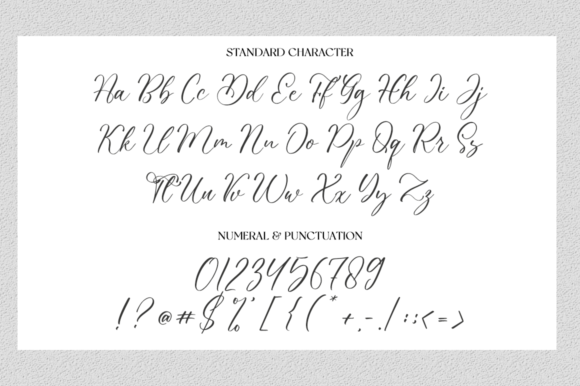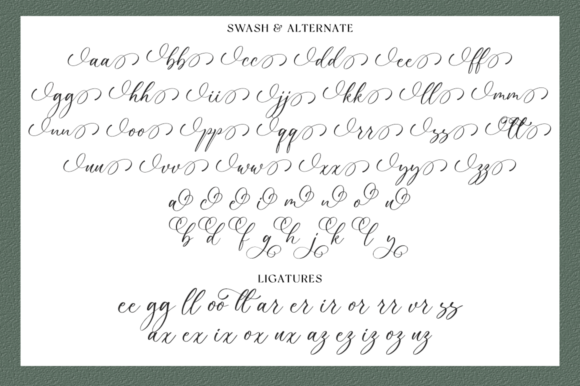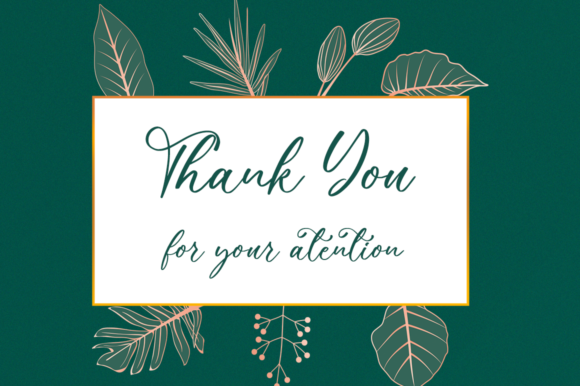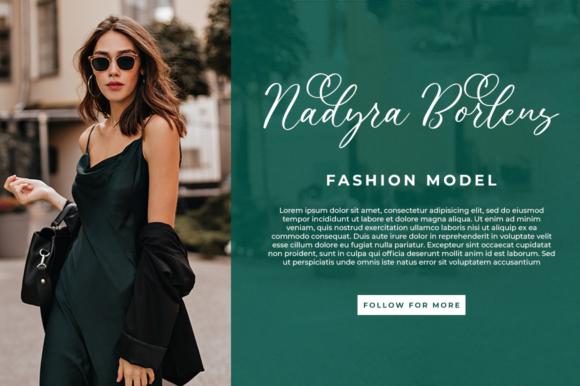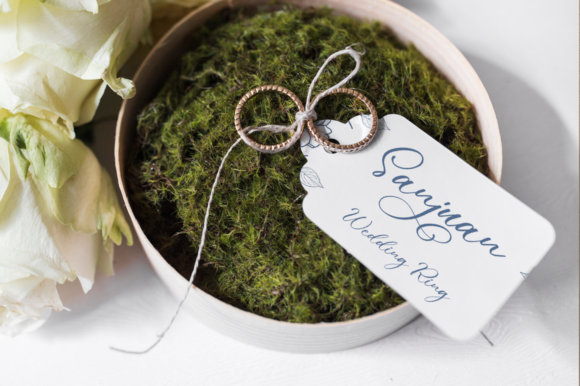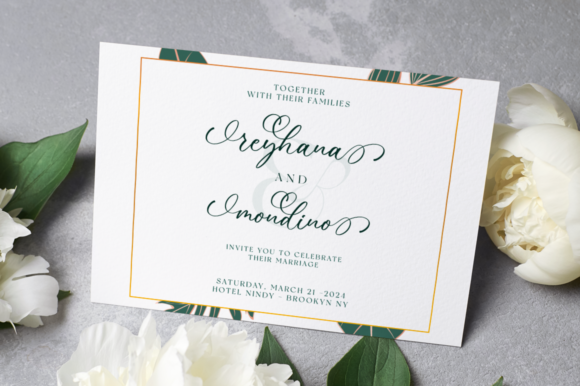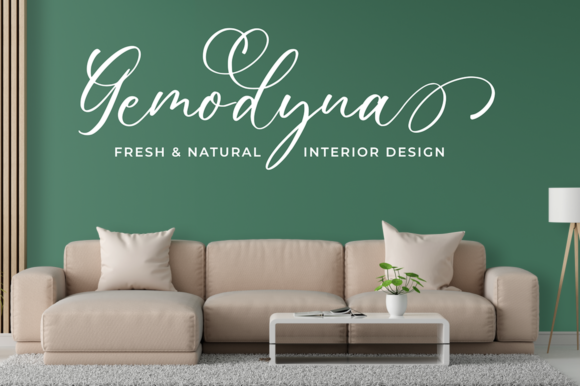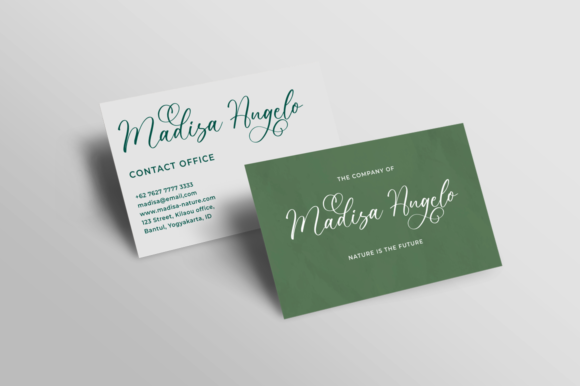
Darling Font
Darling is an elegant handwritten font that effortlessly blends charm and sophistication. With its stunning appearance, this font is particularly well-suited for a range of design applications, including wedding invitations, thank-you cards, quotes, greeting cards, logos, business cards, and any project that benefits from a personalized touch. Notably, Darling is PUA encoded, ensuring convenient access to all its glyphs and swashes for seamless customization.
The charm of Darling is evident in its elegant handwritten style, adding a touch of grace to your text. Its versatility shines through, making it an ideal choice for projects where both charm and sophistication are desired, such as wedding-related materials or professional branding.
Whether you’re working on a heartfelt quote or crafting a distinctive logo, Darling stands out as a font that brings a customized touch to every design. Its PUA encoding feature provides accessibility to a diverse range of glyphs and swashes, allowing designers to personalize their text and create truly unique compositions.
In summary, Darling is more than just a font; it’s an elegant handwritten typeface that adds charm and sophistication to your designs. Let it be the choice that enhances the visual appeal of your wedding invitations, business cards, and various projects, providing a customized touch that elevates your creations to a new level of elegance.